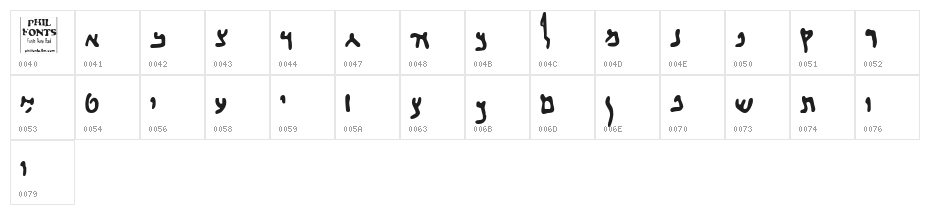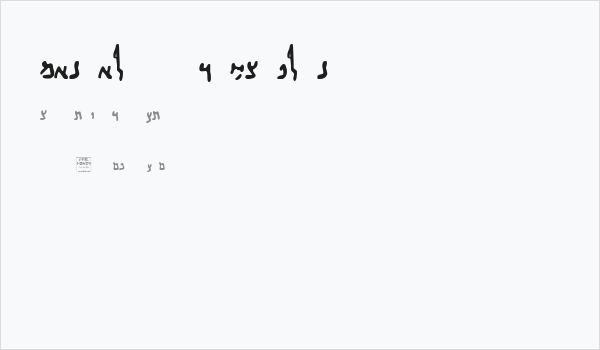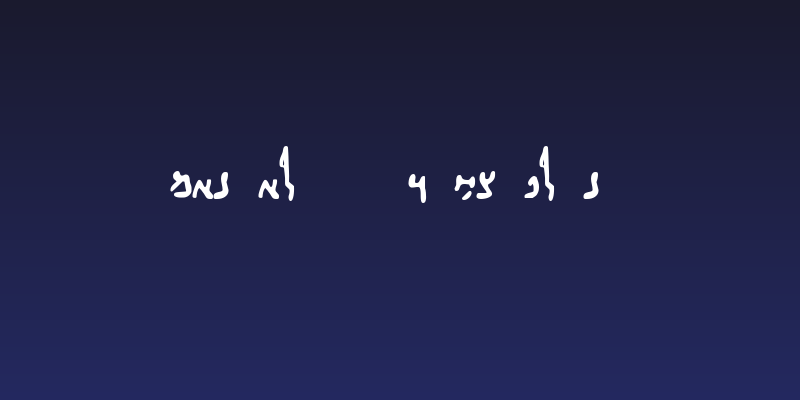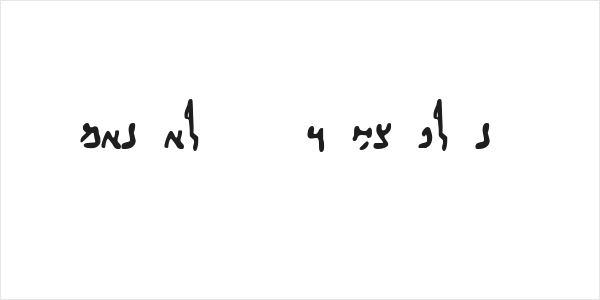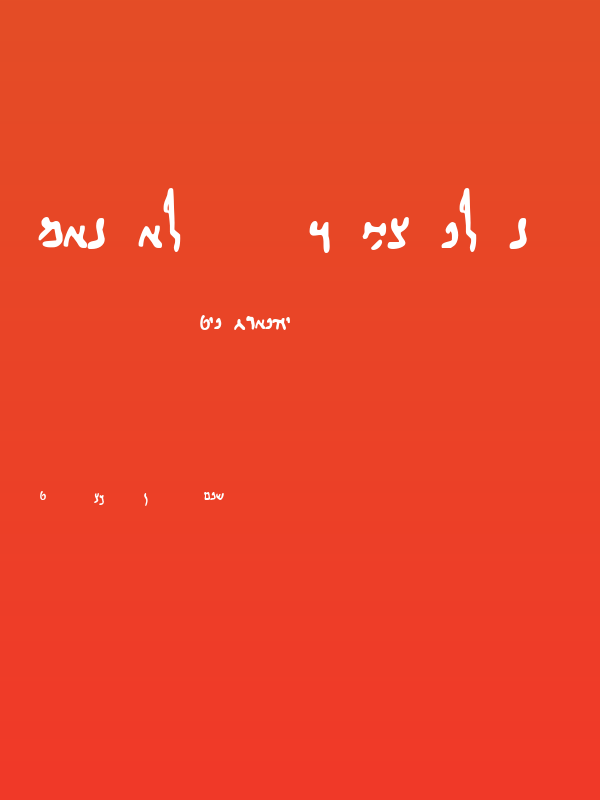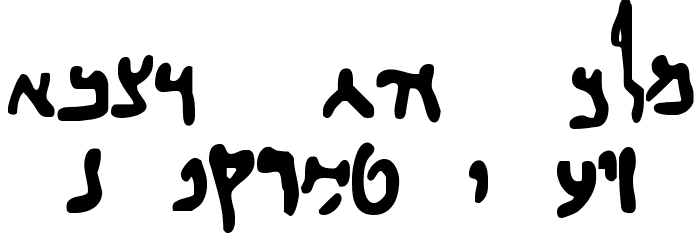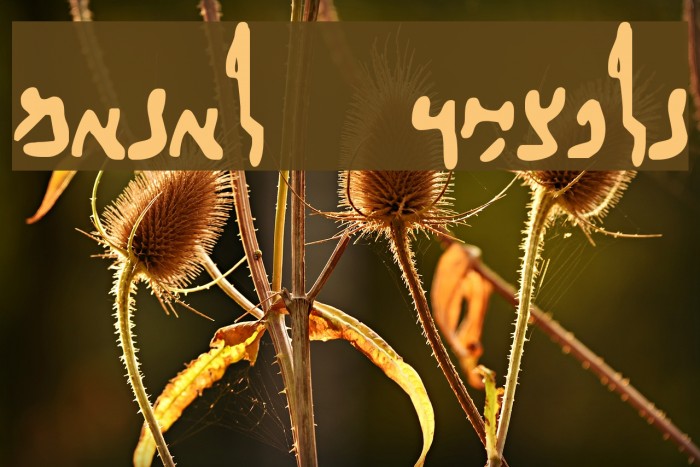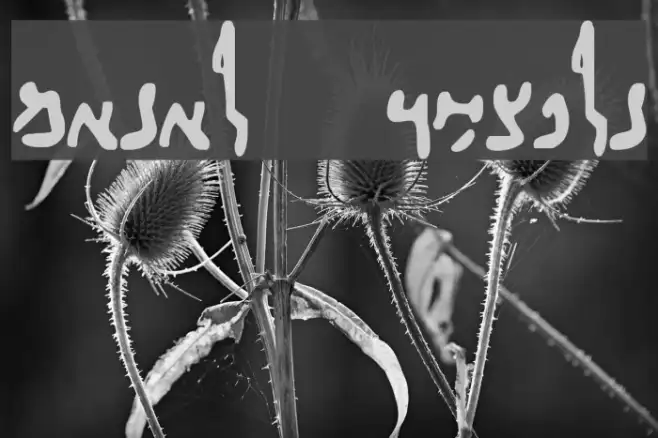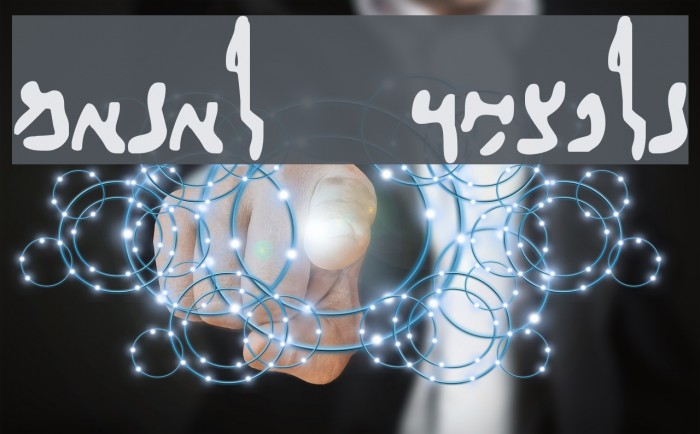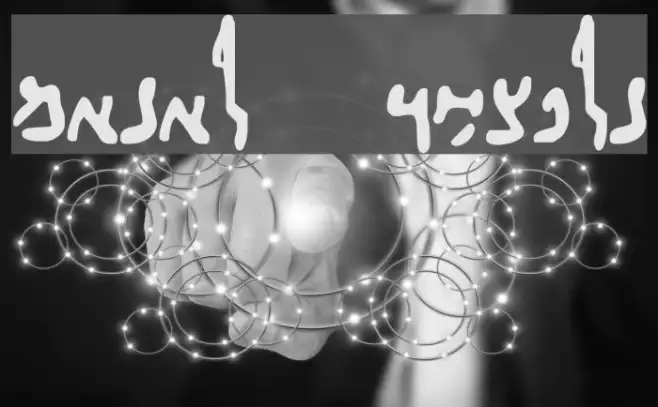
MANUAL OF DISCIPLINE Font
MANUAL OF DISCIPLINE Description
This font features a unique, handwritten style that is reminiscent of ancient scripts. The characters are bold and have a slightly irregular form, giving them an organic and authentic feel. The strokes are thick and rounded, with a consistent weight throughout. The overall appearance is both historical and artistic, making it suitable for projects that require a touch of antiquity or cultural depth. The spacing between characters is moderate, allowing for readability while maintaining the script's distinctive character.
| Use Case | Logos, Artistic designs, Cultural projects |
| Proposed Projects | Ideal for historical documents, cultural projects, artistic designs, and educational materials that require an authentic, ancient script feel. |